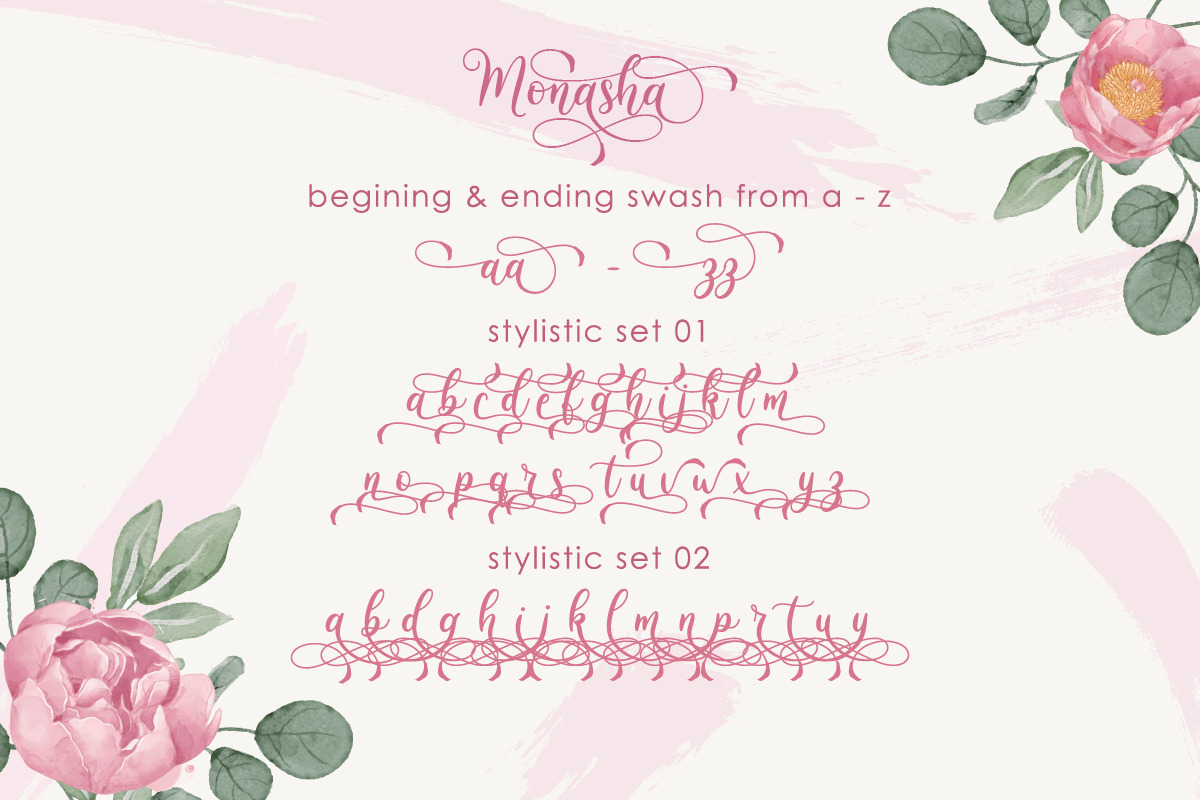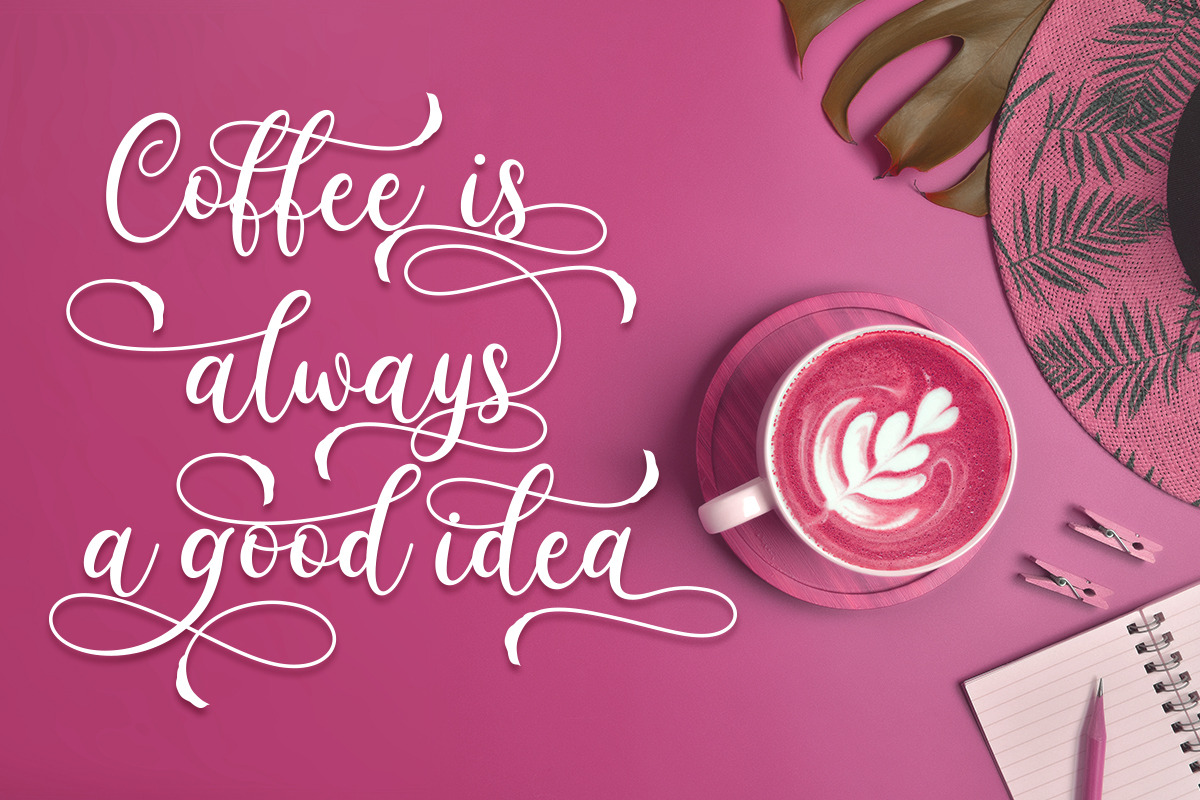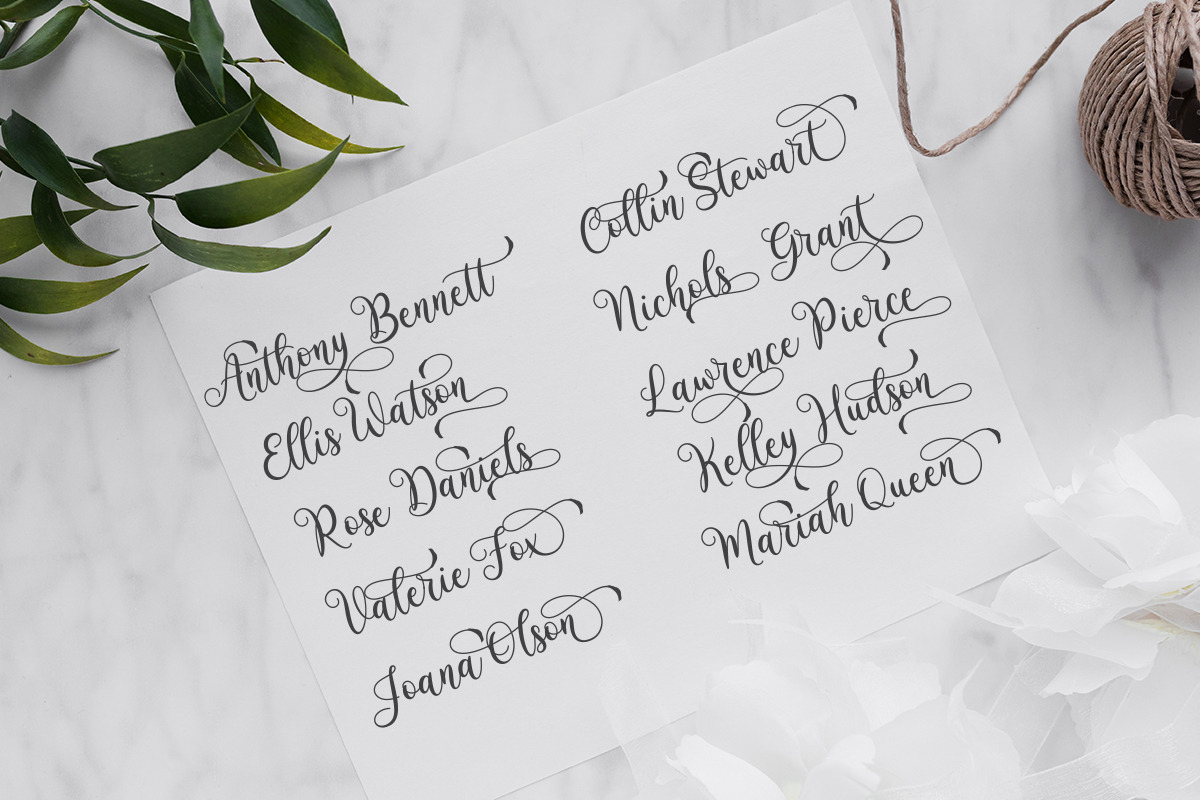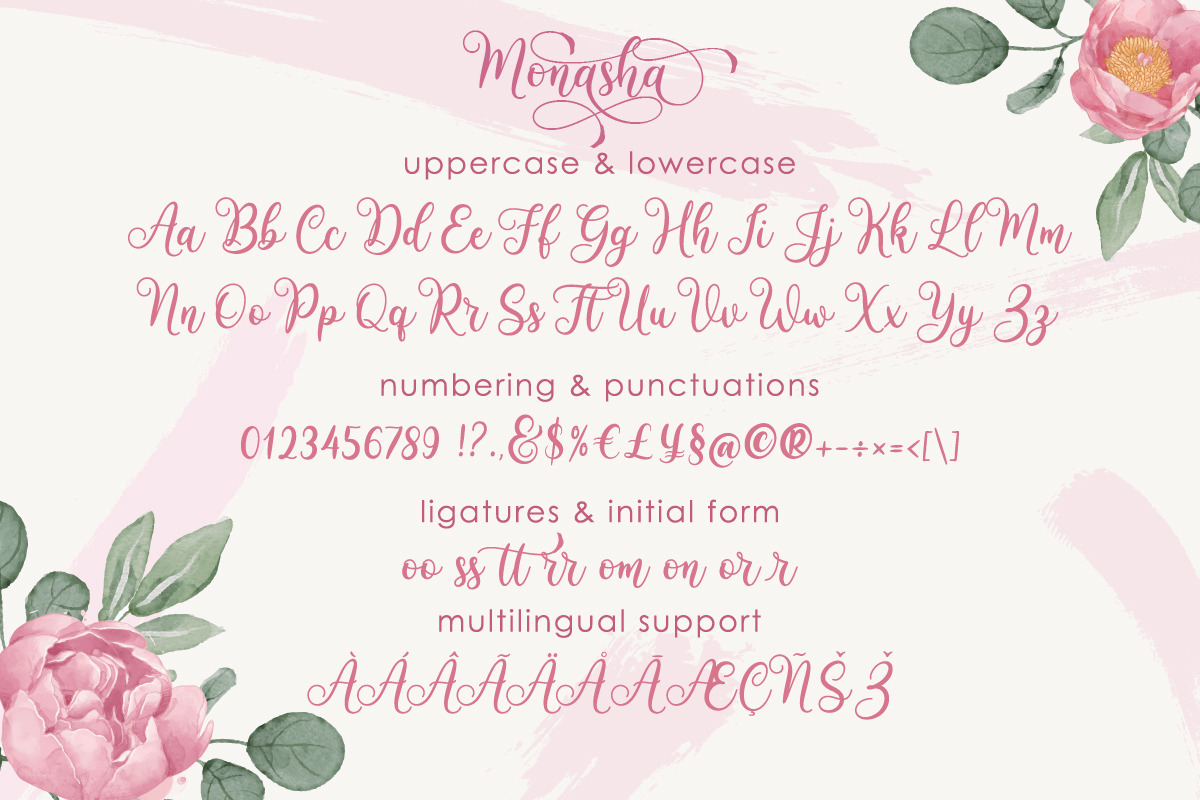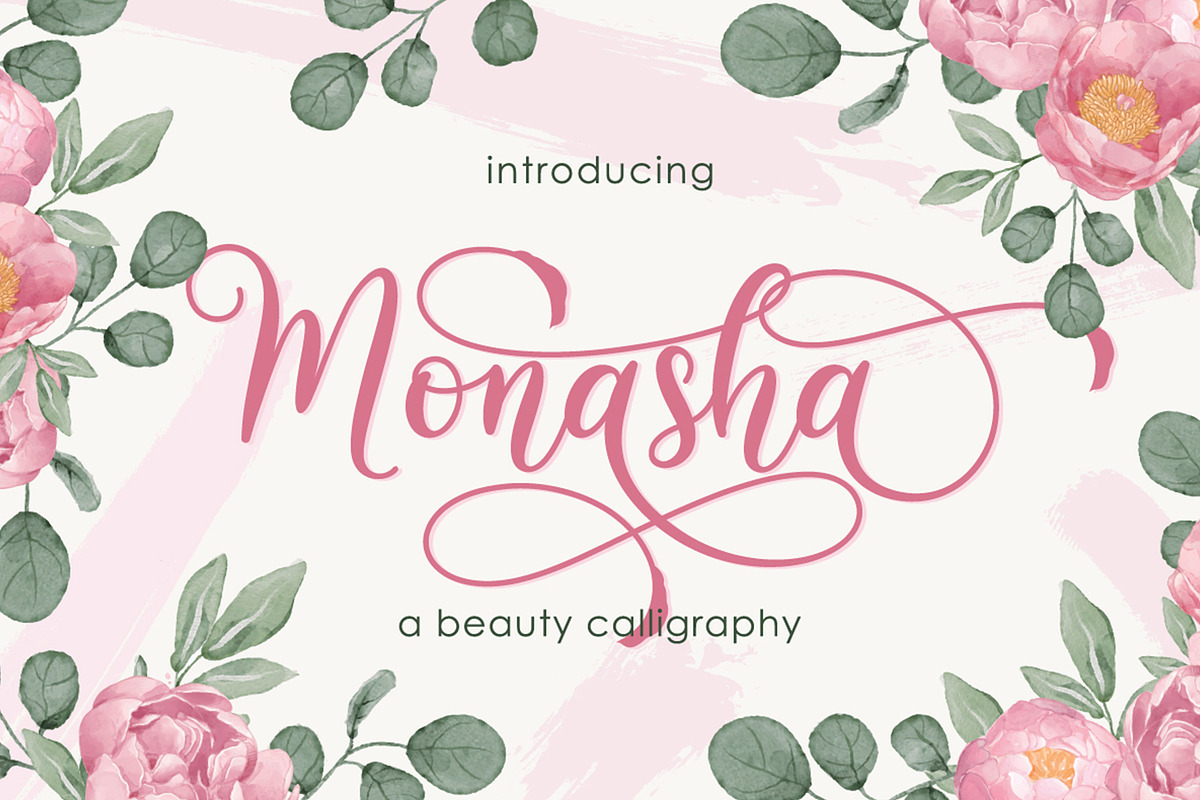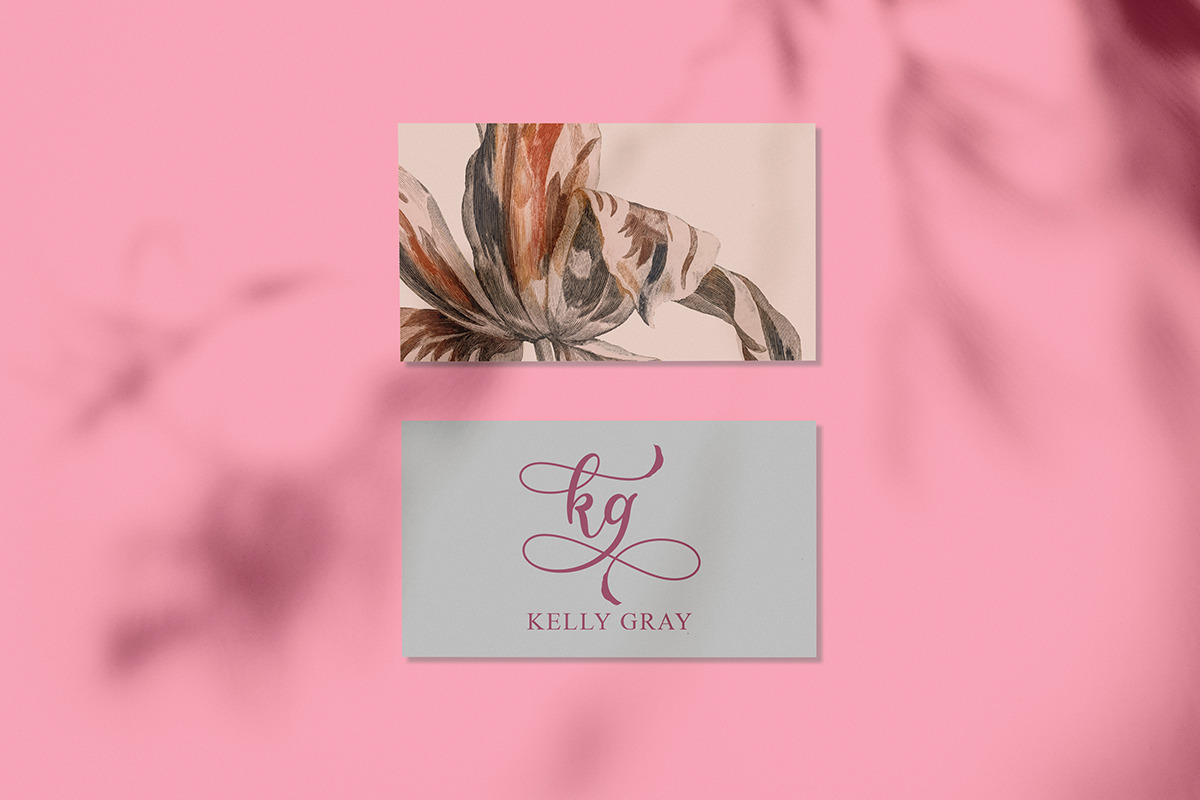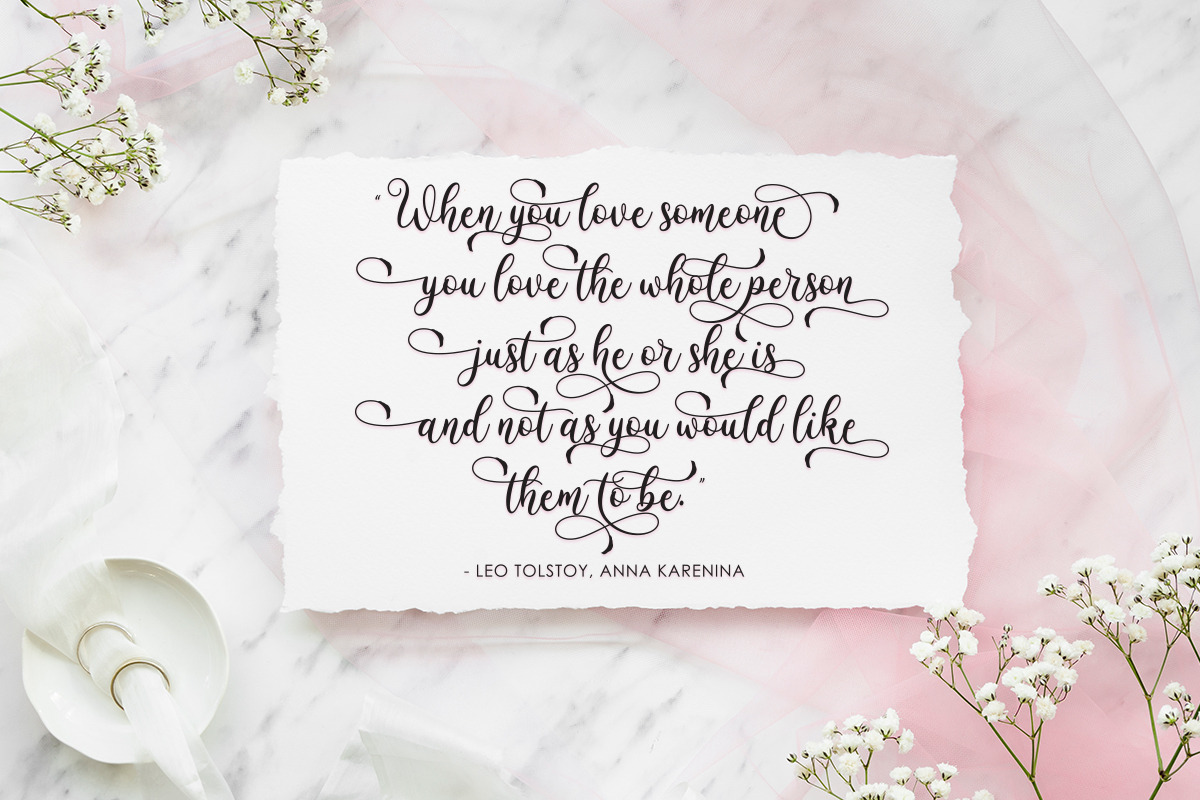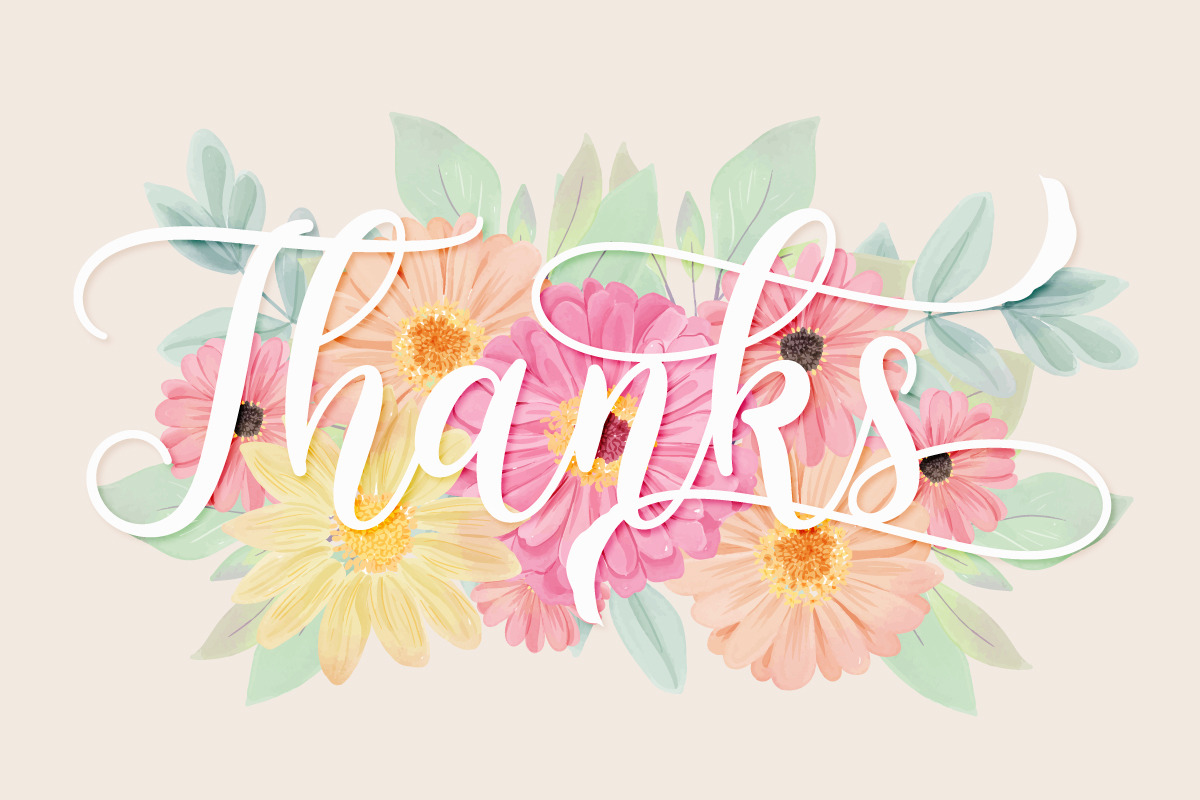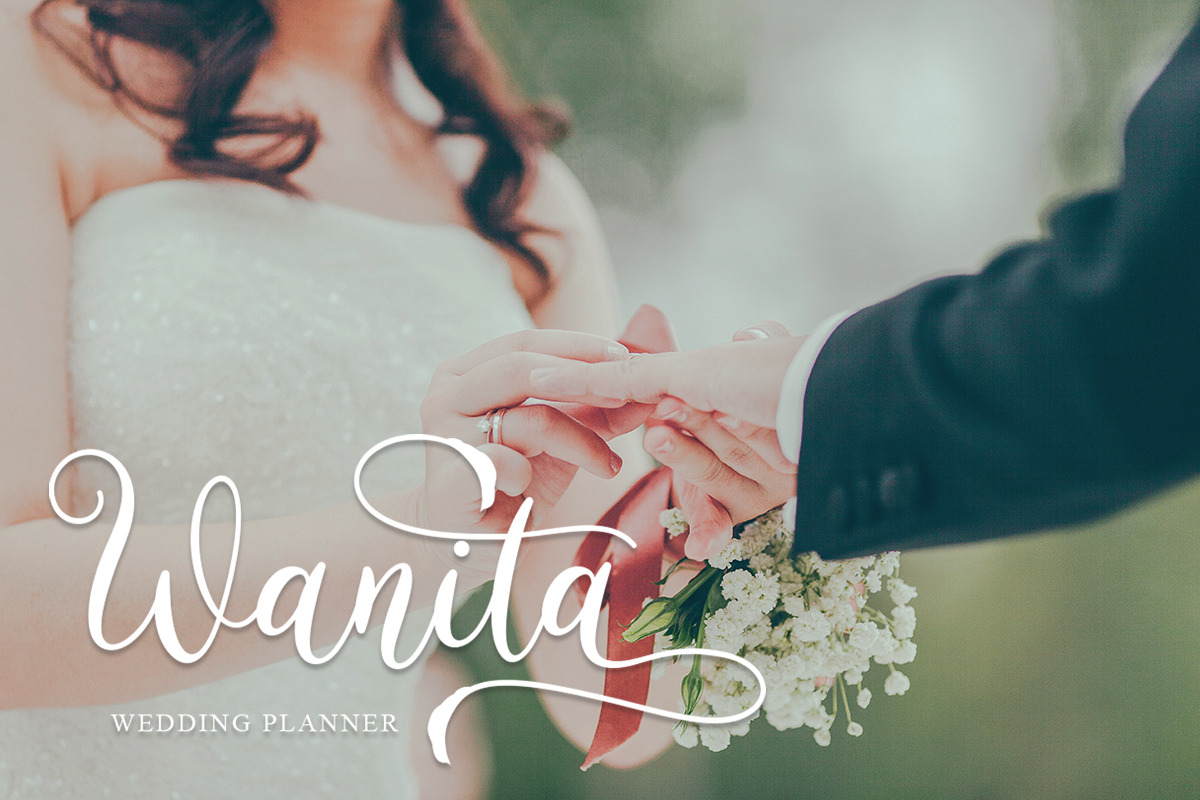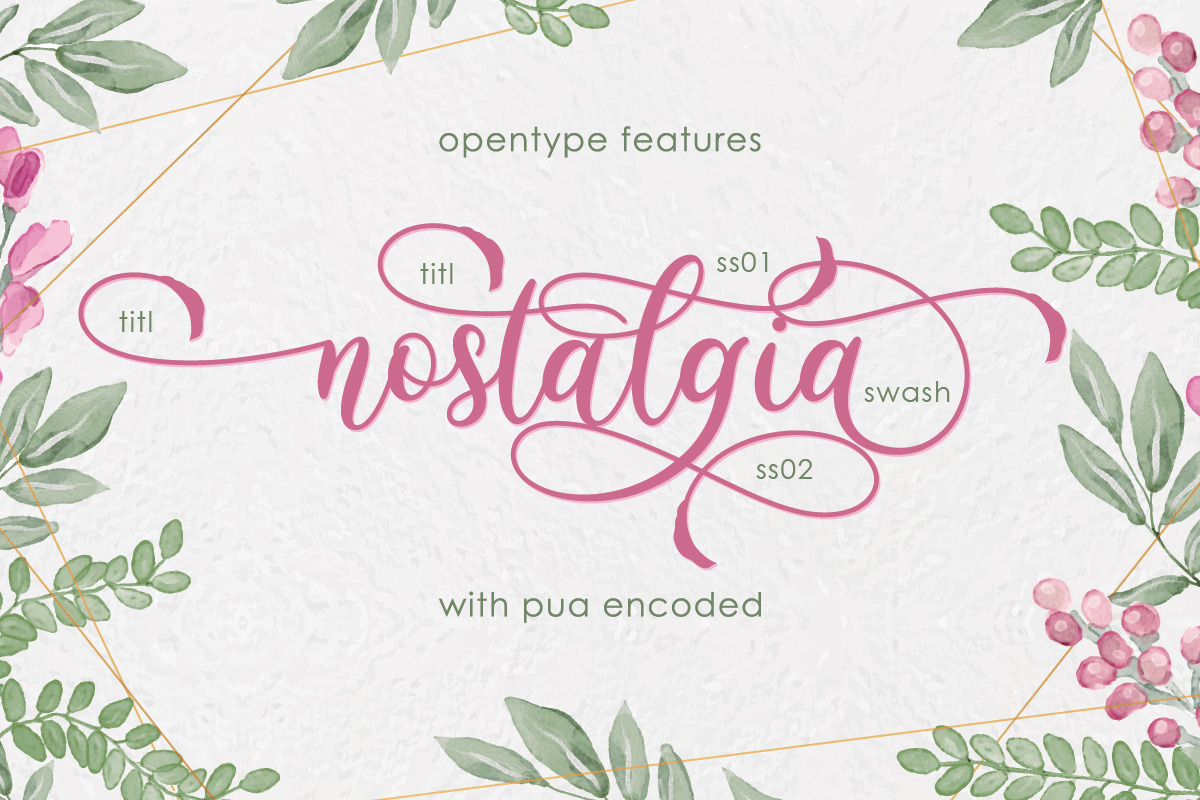
Monasha | Beauty Calligraphy
Monasha is a beautiful calligraphy font with many alternative styles & leaf swash, this font looks natural, elegant and perfect for any extraordinary project.Monasha is suitable for various products such as invitations, product packaging, quotes, product design, crafter, labels, photography, watermarks, logos & branding.Everything can be accessed using software that supports Opentype, such as Adobe Indesign, Adobe CS Illustrator, Adobe Photoshop CC, and Corel Draw.